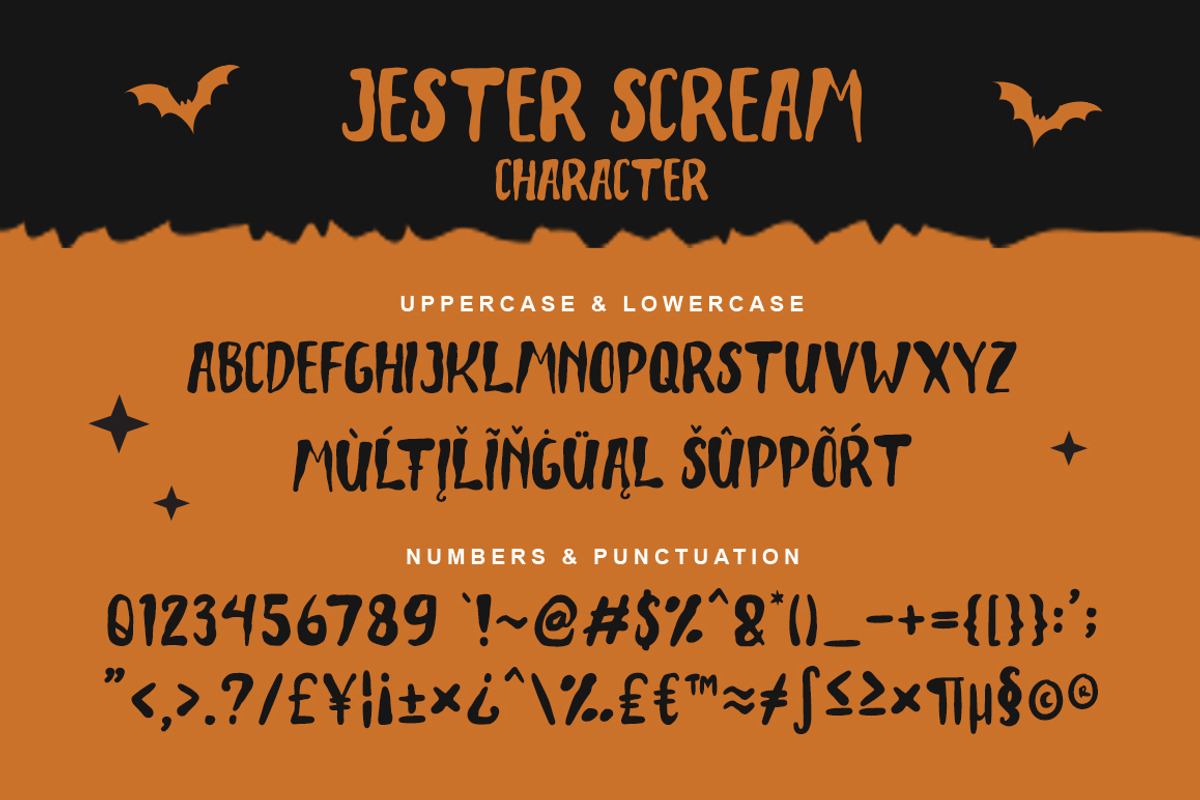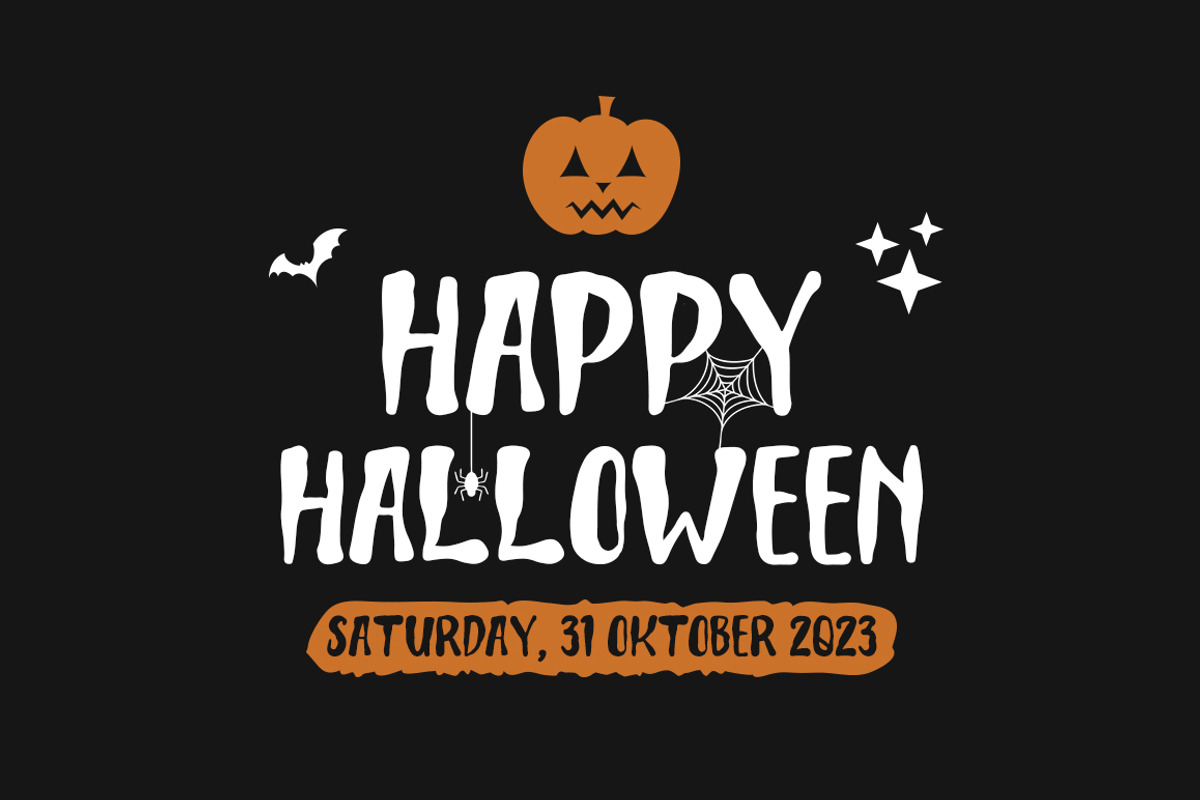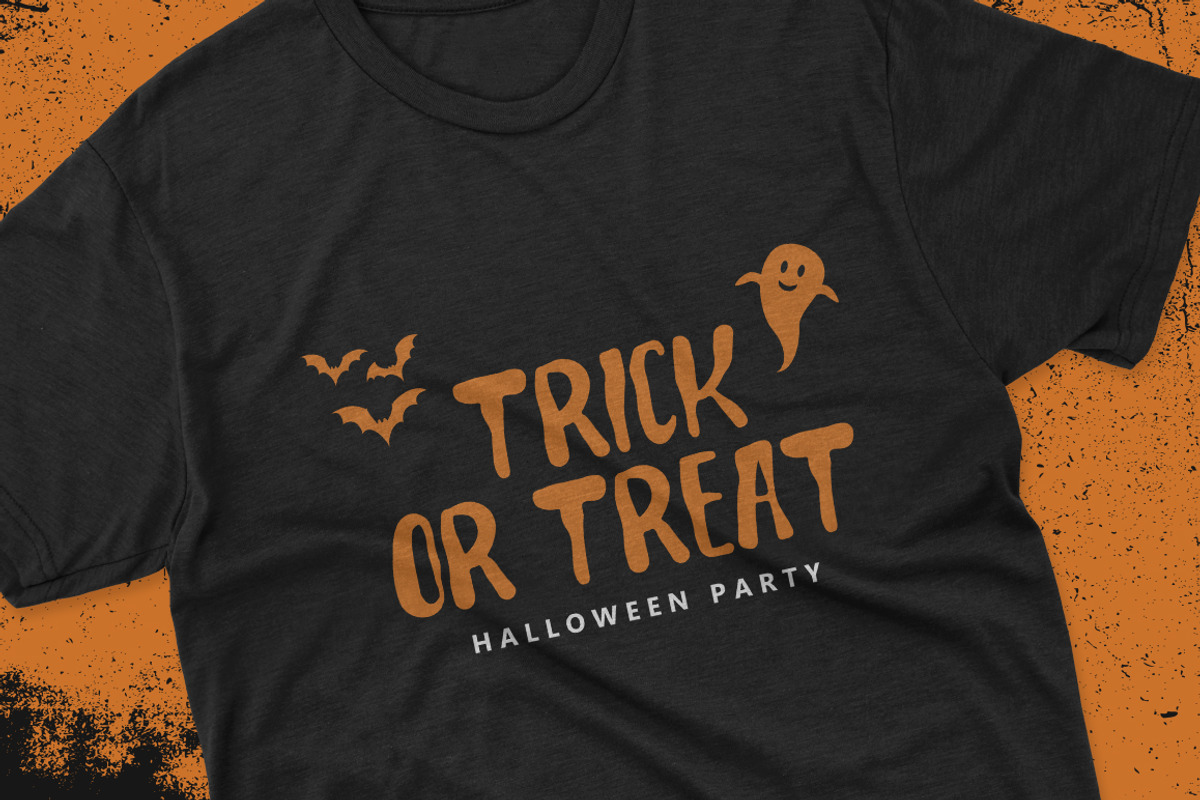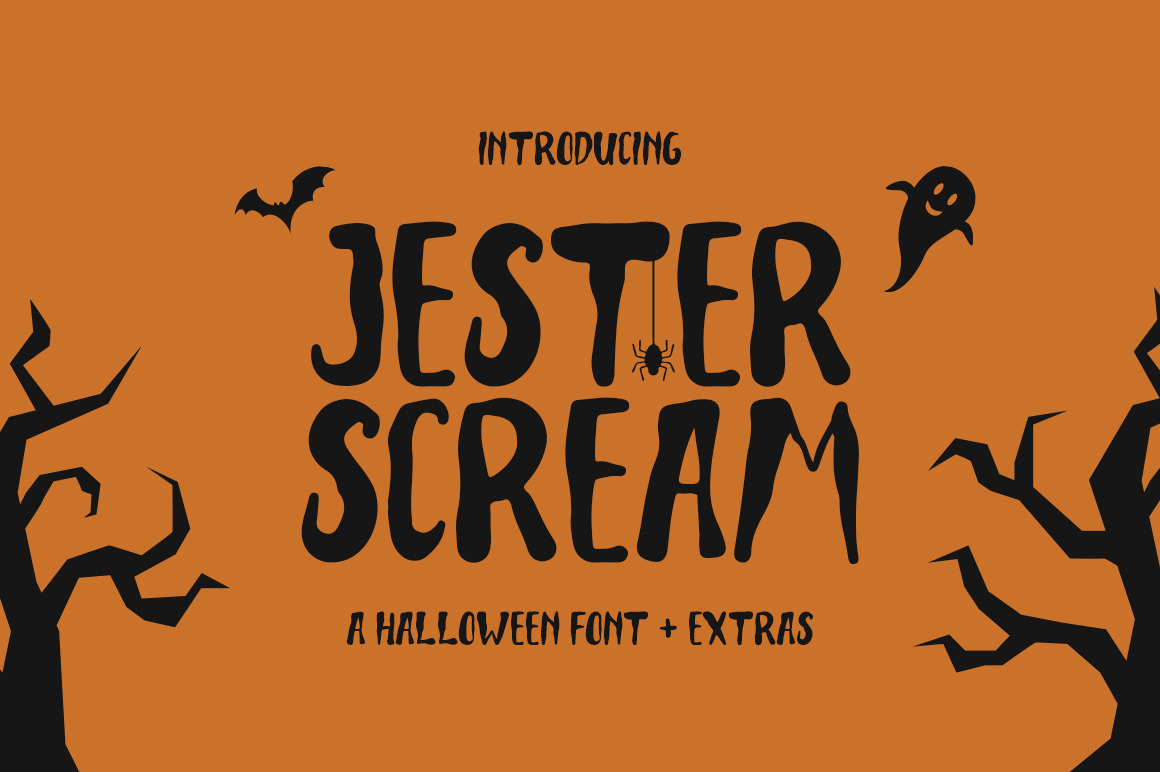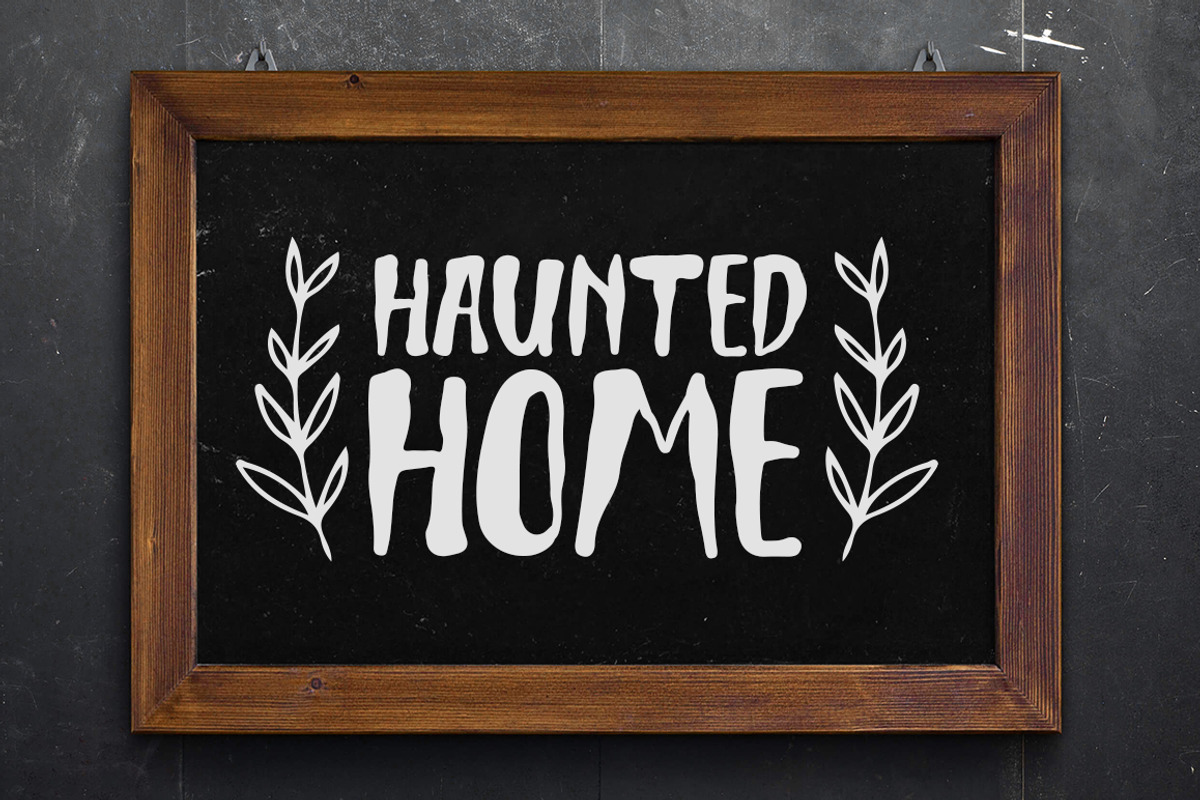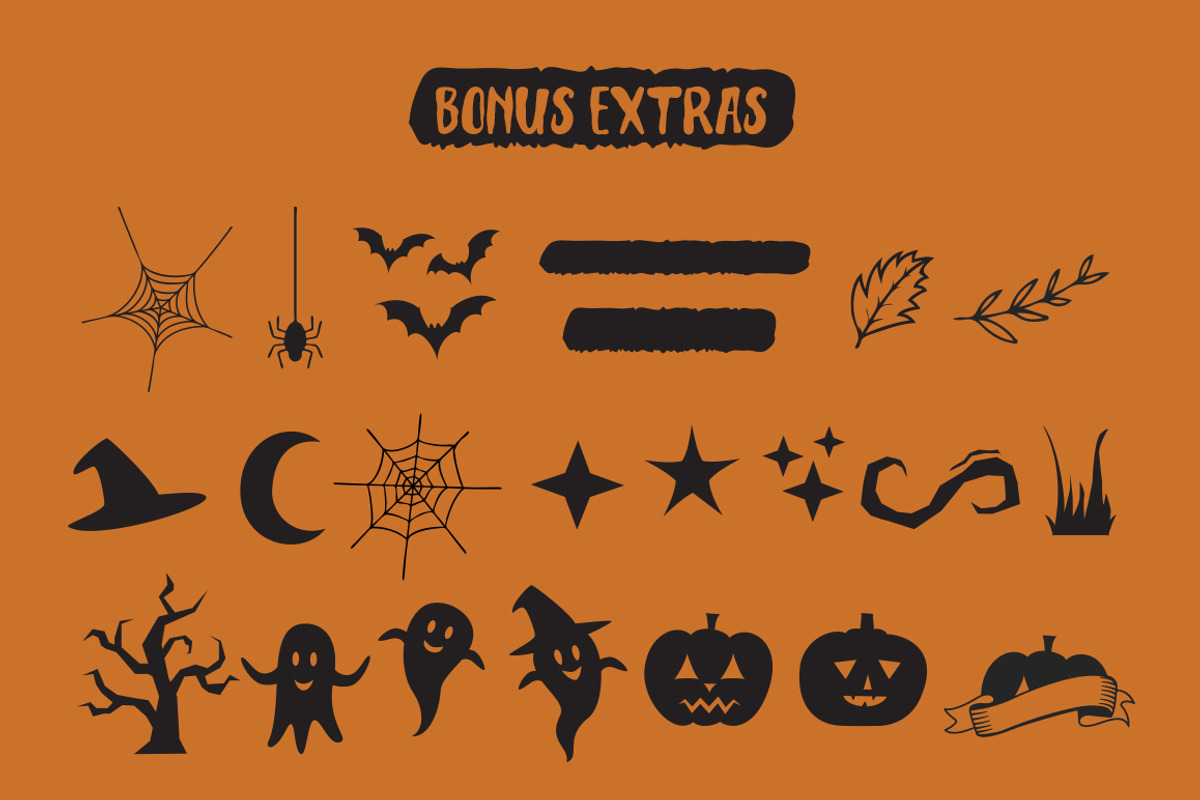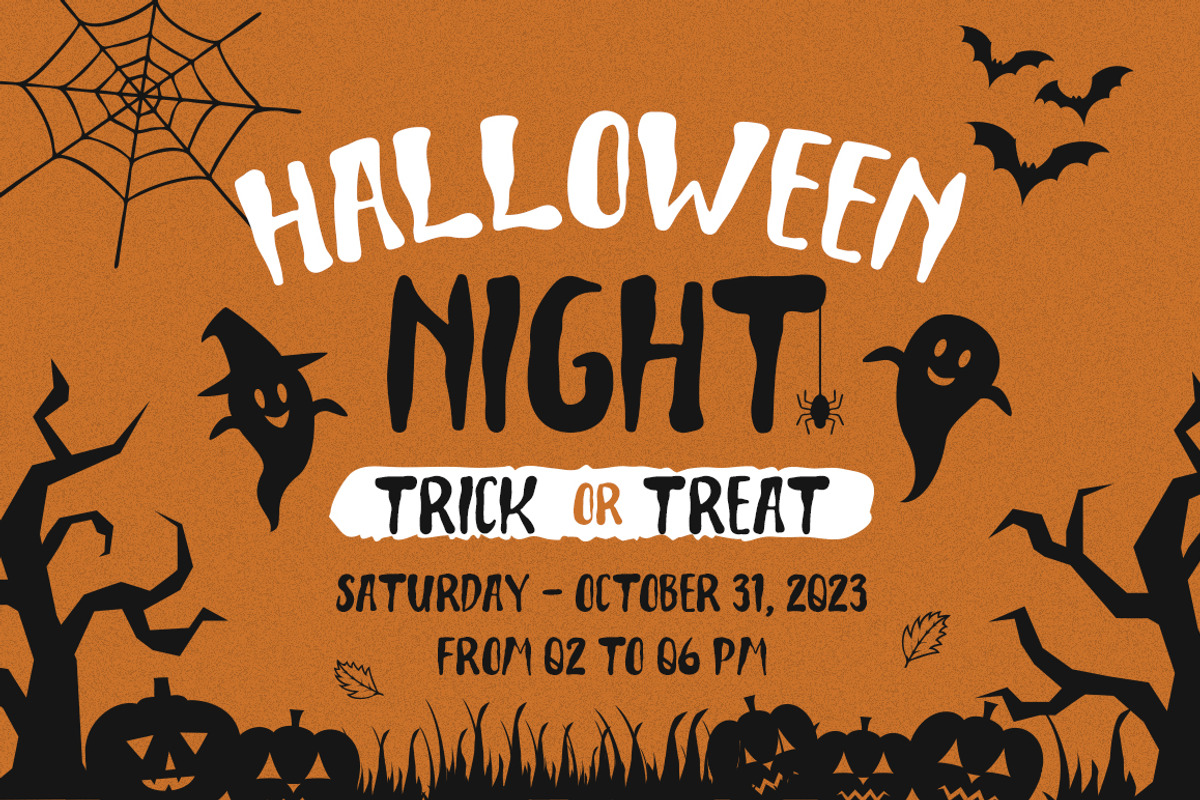
Jester Scream | a halloween font
Jester Scream is a spooky Halloween font with a gory style. Perfect for circuit projects, shirts, retro designs, Halloween invitations, mugs, stickers, playful quotes, creating posters, logos, greeting cards, packaging, decorating the illustration and so much more!